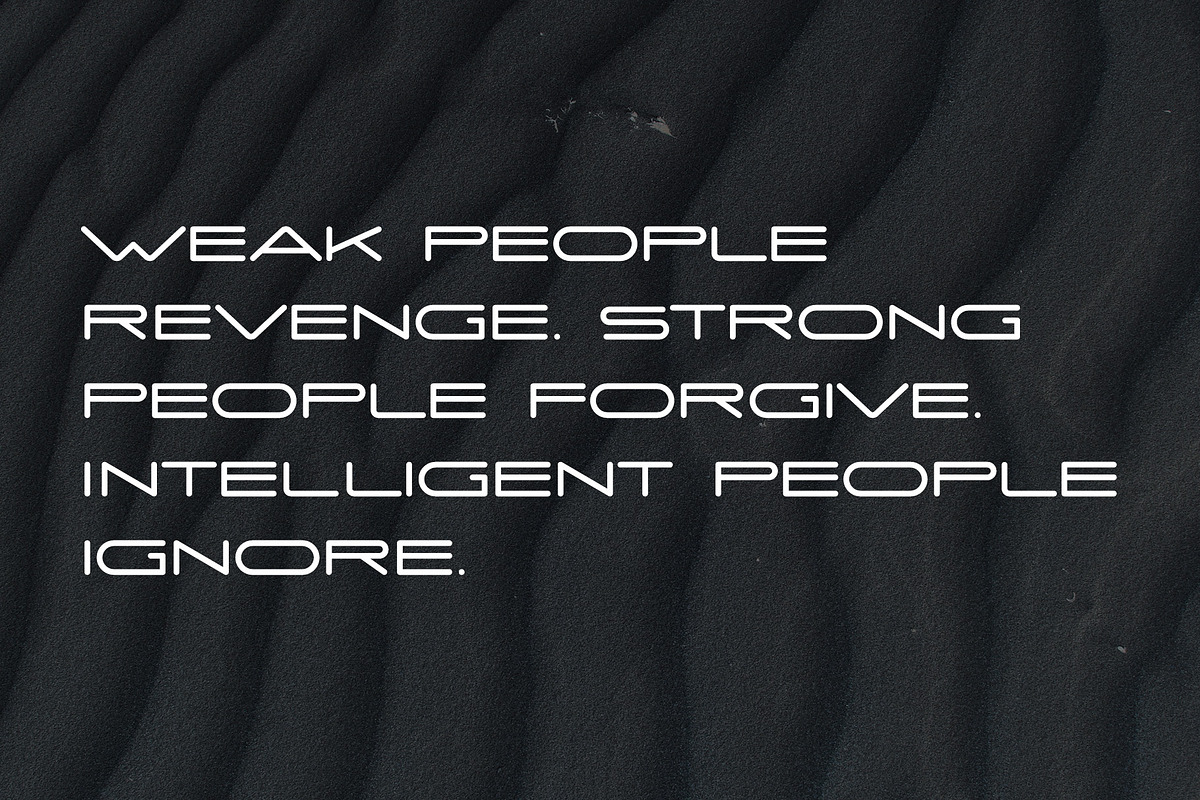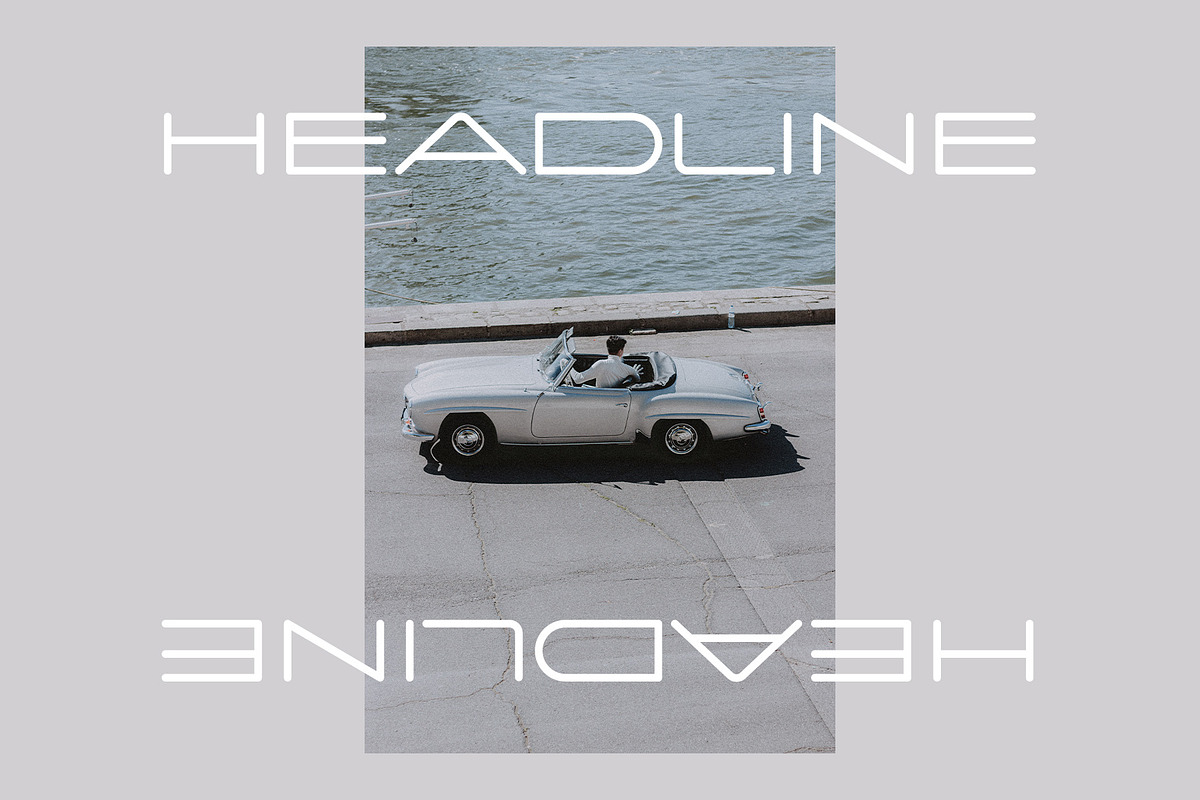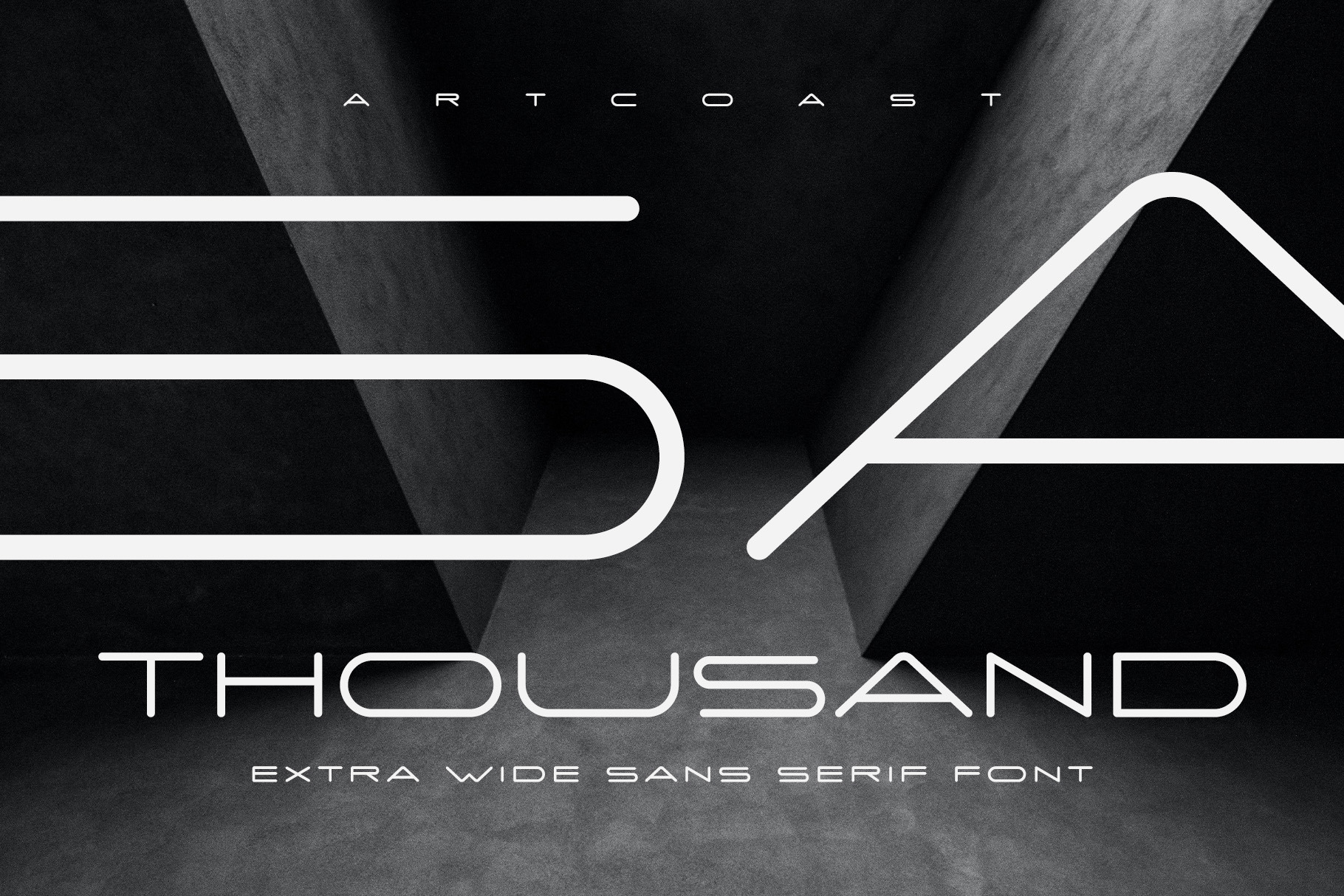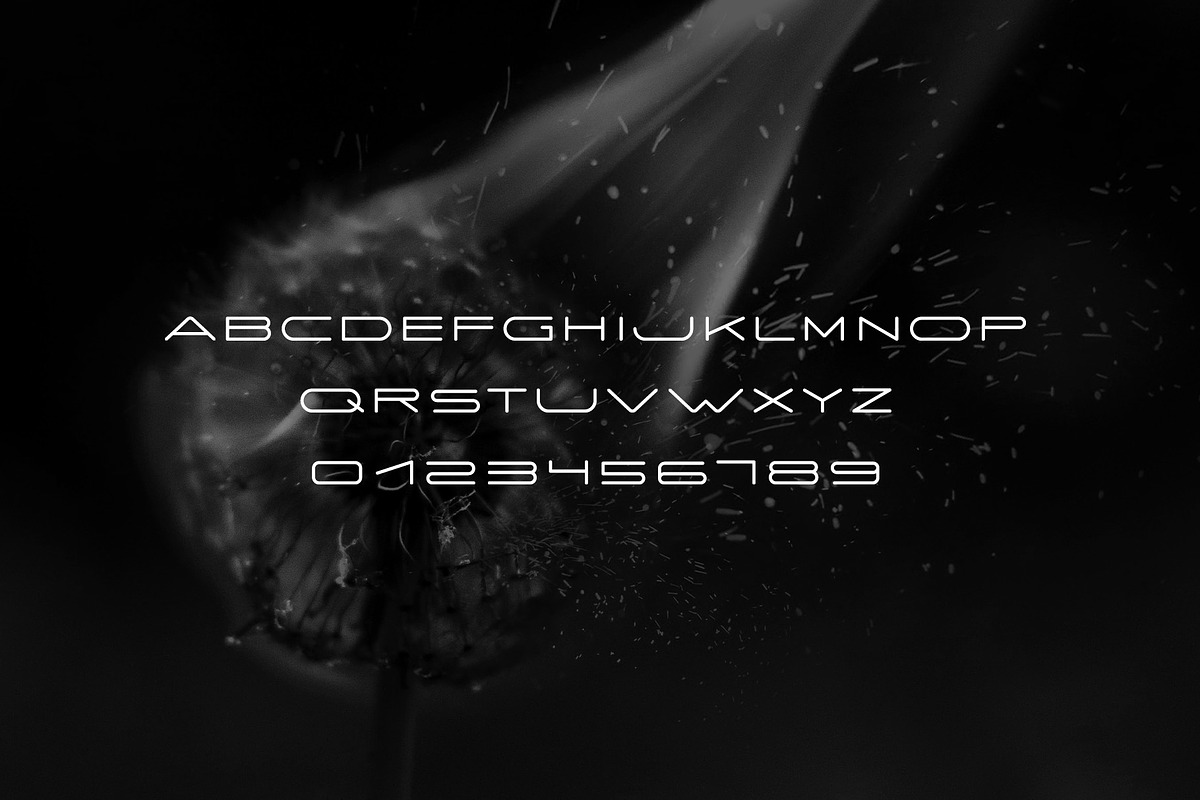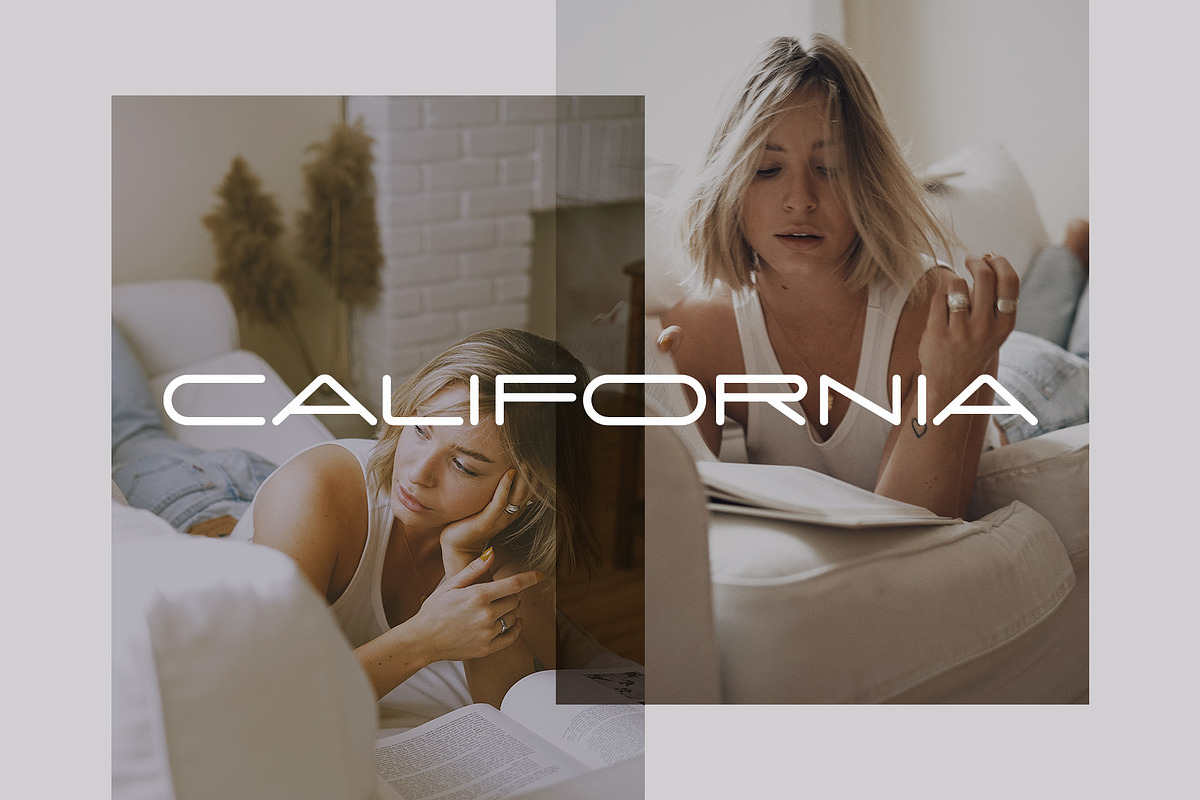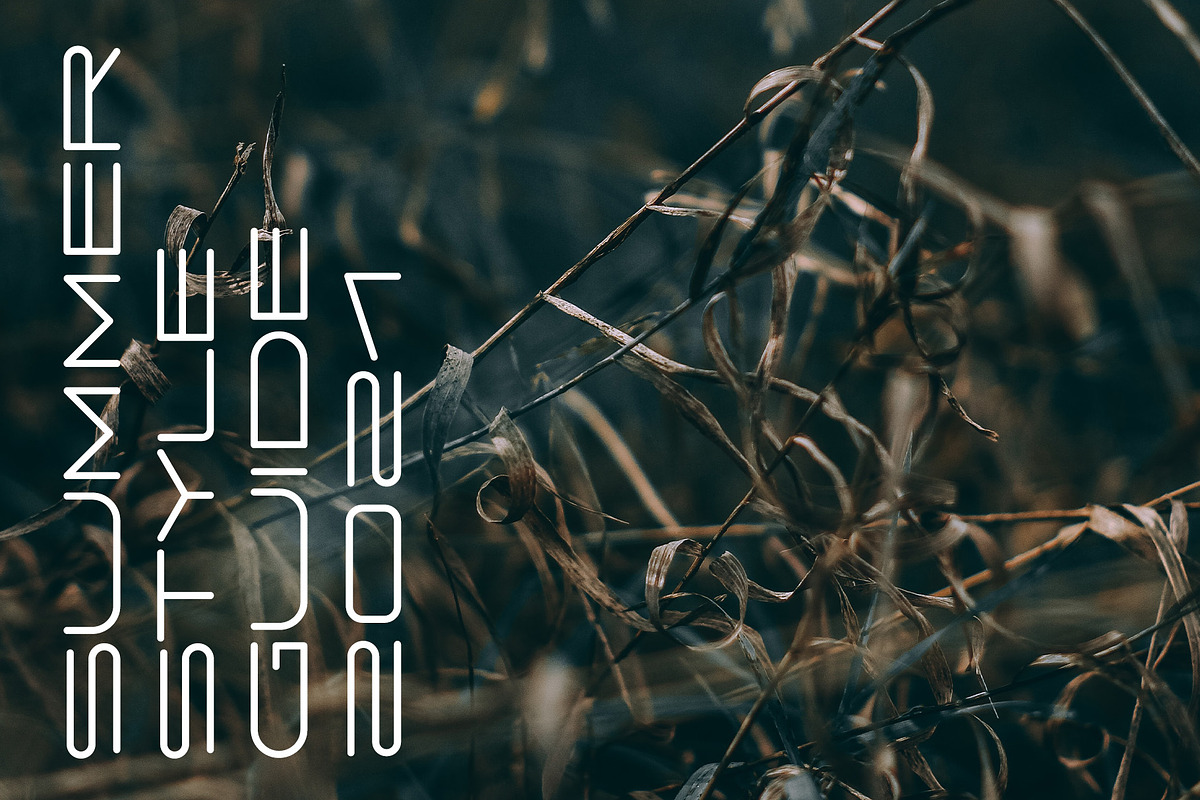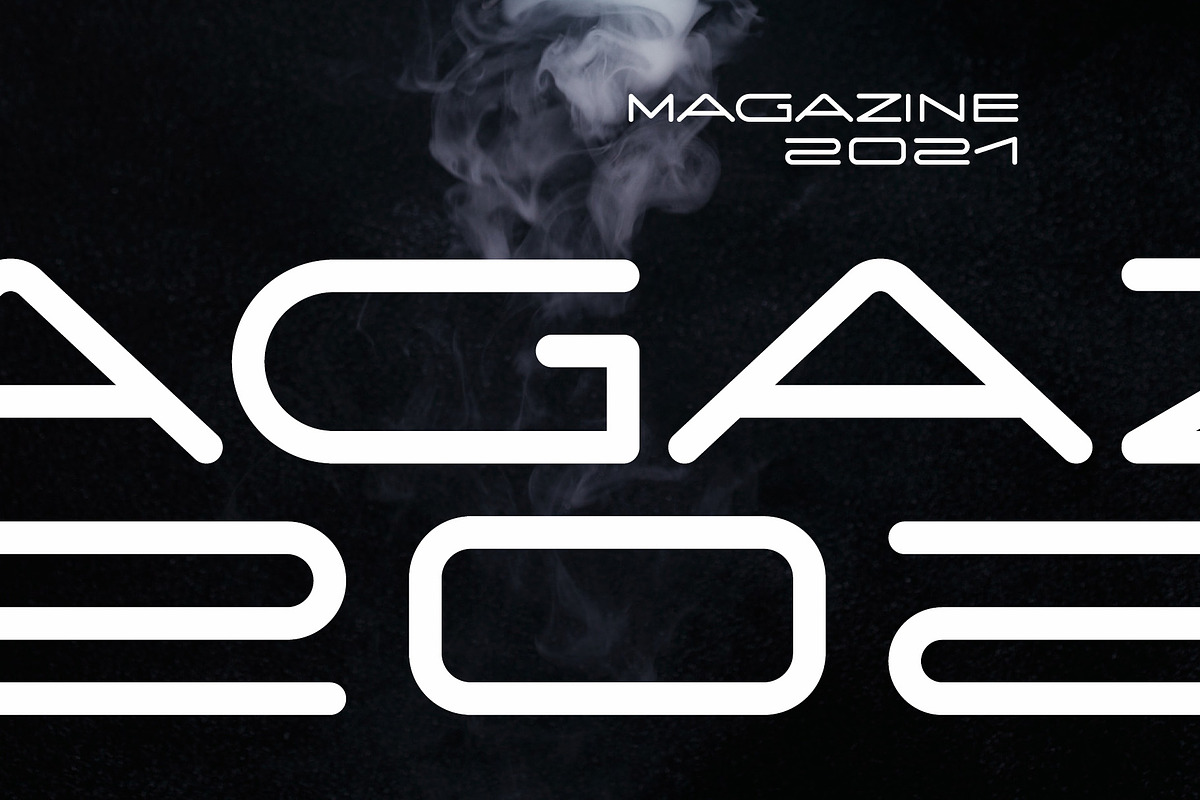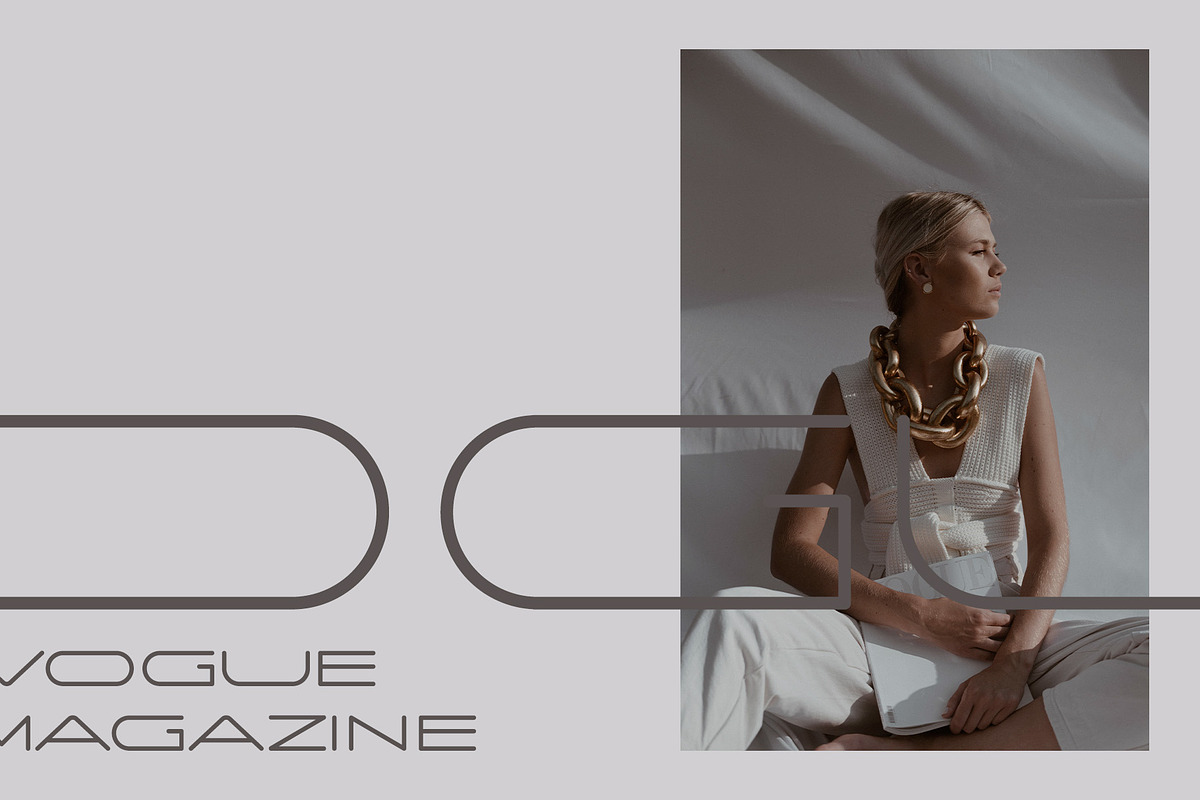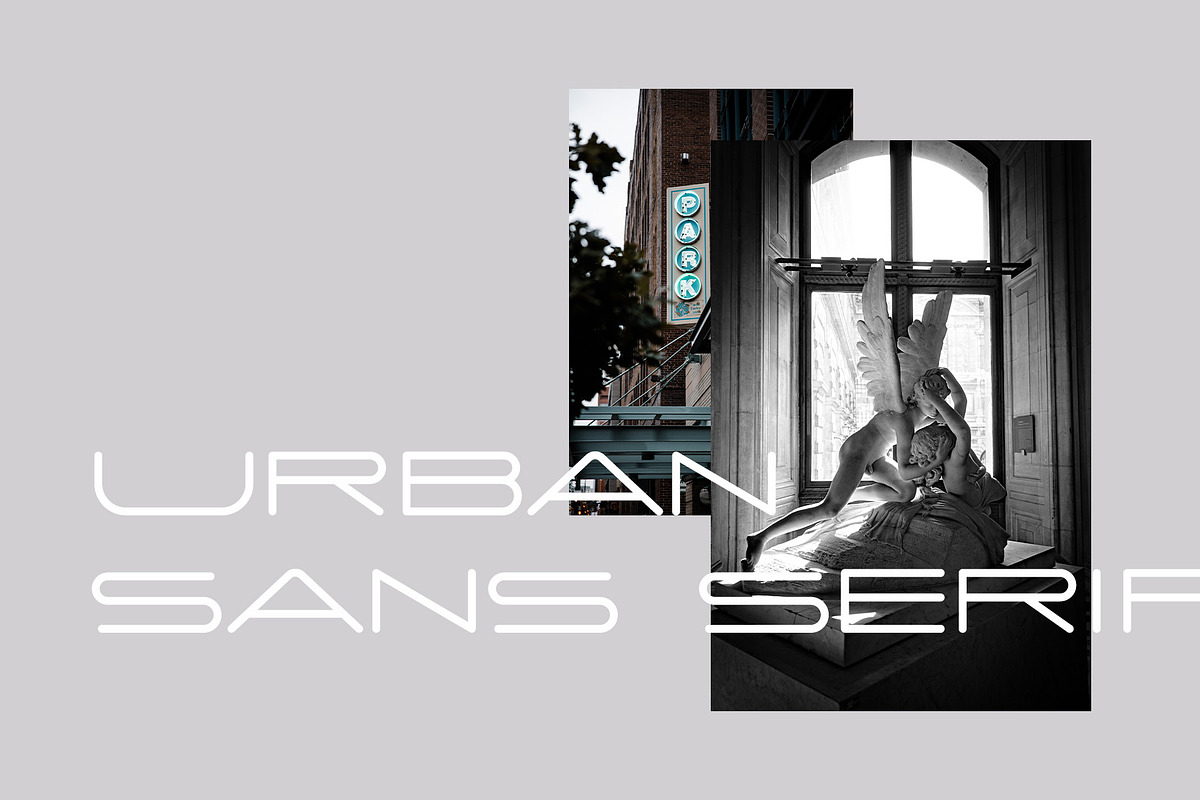
Thousand Extra Wide Sans Serif Font
Thousand is an extra-wide geometric sans serif font family with a sleek, futuristic character. Its extended proportions, rounded details, and generous spacing create distinctive typography that feels modern, minimal, and confidently experimental.
Uppercase A–Z
Use Thousand for sci-fi branding, fashion campaigns, magazine layouts, album covers, posters, logos, packaging, social media, technology projects, and oversized headlines. The three weights make it easy to build hierarchy across display compositions while maintaining a consistent visual identity.